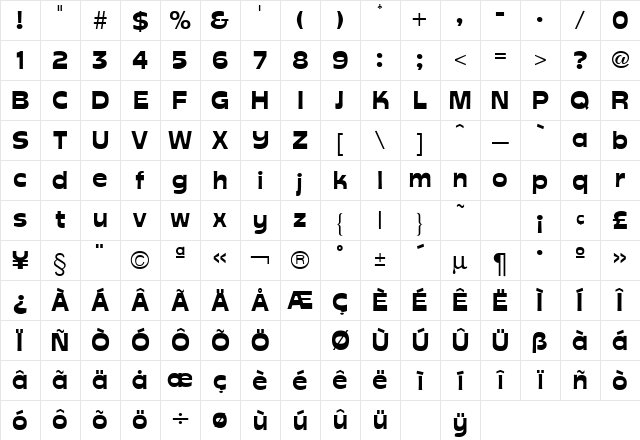
Global Regular
Global Family
Global Regular
Design Context for Global
Global is a composed and adaptable typeface that performs quietly and consistently across a wide range of design contexts.